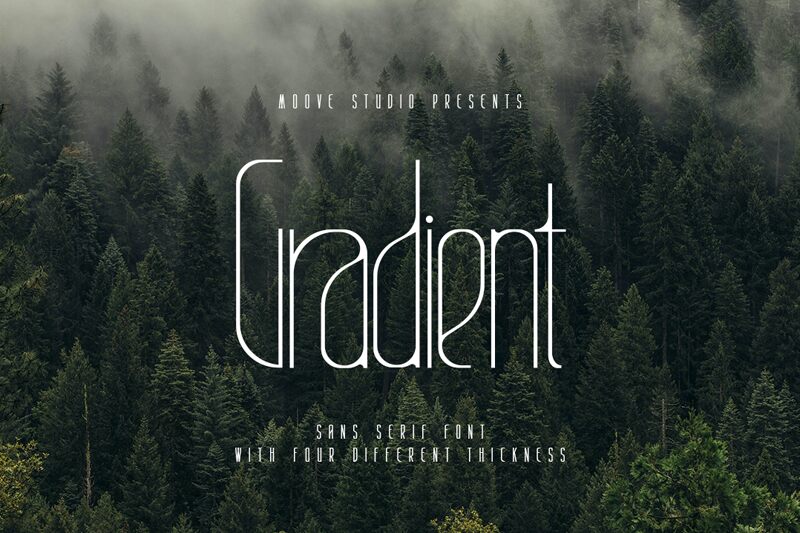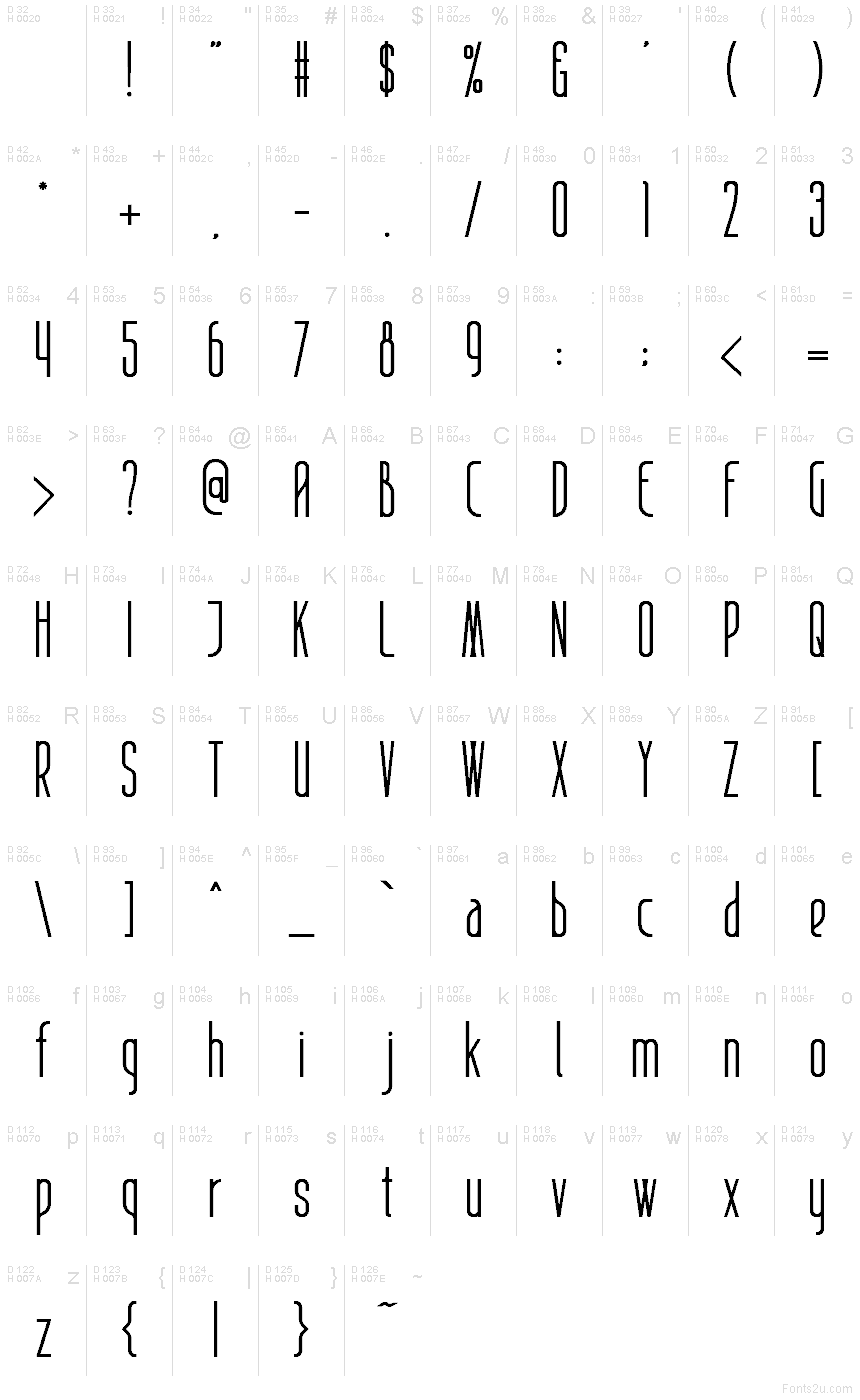
Gradient Bold Bold
Gradient Bold font by Moove Studio is a free condensed sans serif typeface from the Gradient family that stands out for its striking vertical rhythm and tubular curves. Those razor-straight stems and rounded inner corners create a sleek, poster-ready texture—clean, modern, and a little bit Deco. The letters lock together with confident tightness, giving headlines a tall, streamlined presence without feeling cold.
Using Gradient Bold, you get headlines that read fast and look sharp: launch posters, tech branding, product packaging, album art, event titles, and bold website banners all benefit from its narrow footprint and steady beat. This free font shines when set large with a touch of tracking to let the shapes breathe. Pair it with a neutral grotesk for body copy to keep the spotlight on Gradient Bold’s sculpted forms.